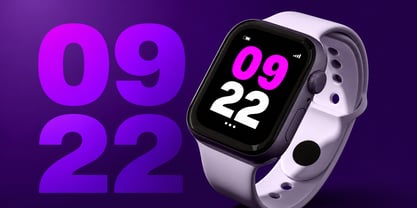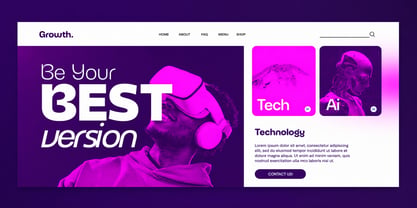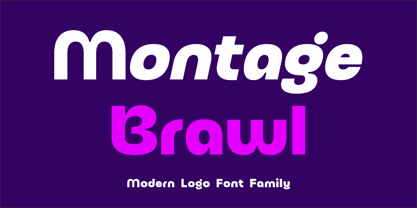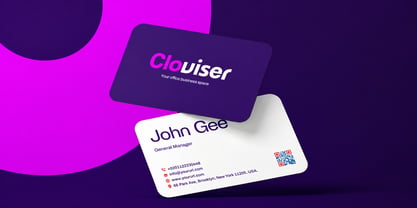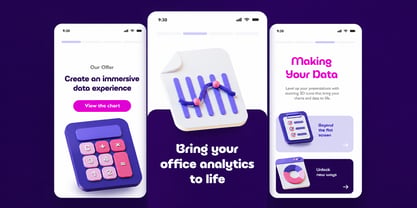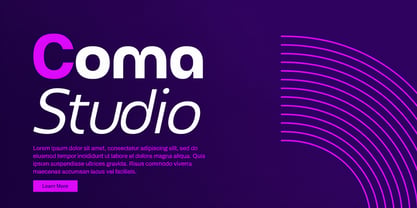
Montage Brawl – Modern Logo Font
Montage Brawl is a bold and modern sans serif display font crafted to deliver a powerful visual statement. Featuring clean lines, strong proportions, and a confident personality, Montage Brawl is designed for branding, logos, headlines, and impactful visual identities that demand attention.
With its clean geometric structure and distinctive display character, Montage Brawl creates a strong and contemporary typographic presence. Its carefully balanced letterforms make it especially effective for designs where typography plays a central role, helping create a visual identity that feels modern, confident, and memorable.
Montage Brawl performs beautifully across a wide range of creative projects, from logos and branding to posters, editorial layouts, digital banners, advertising graphics, and signage. Its versatile appearance allows it to adapt to both minimalist compositions and more expressive visual concepts.
Designed with attention to kerning, spacing, and letterform balance, Montage Brawl provides excellent visual harmony across different sizes. Its bold character makes it particularly effective for titles, headers, logos, and focal typography where strong visual impact is essential.
Montage Brawl combines modern simplicity with a powerful display personality. Whether paired with bold imagery or used as the main visual element, it enhances the overall composition with clarity, strength, and contemporary style.
Elevate your creative projects with Montage Brawl, a distinctive modern logo font designed to create typography that stands out and leaves a lasting impression.
Key Features of Montage Brawl Font
Modern Sans Serif Design
A clean and contemporary display font designed for bold and professional visual identities.
Bold Display Character
Strong letterforms create an impactful presence for logos, headlines, titles, and promotional graphics.
Perfect for Logo Design
Balanced proportions and refined spacing make it ideal for memorable logos and wordmarks.
Clean & Confident Typography
A modern structure that communicates strength, clarity, and contemporary sophistication.
Versatile Display Font
Works beautifully across branding, advertising, editorial layouts, digital graphics, and signage.
Multilingual Support
Includes extended glyph support for a wide range of international design projects.
Why Choose Montage Brawl?
Montage Brawl is a powerful modern logo font created for designers who want typography that feels bold, clean, confident, and contemporary. Its strong display character and carefully balanced letterforms make it an excellent choice for creating memorable visual identities.
Whether you're creating logos, branding systems, posters, advertising graphics, editorial layouts, digital banners, signage, packaging, gaming graphics, or social media designs, Montage Brawl gives your typography a strong and distinctive personality.